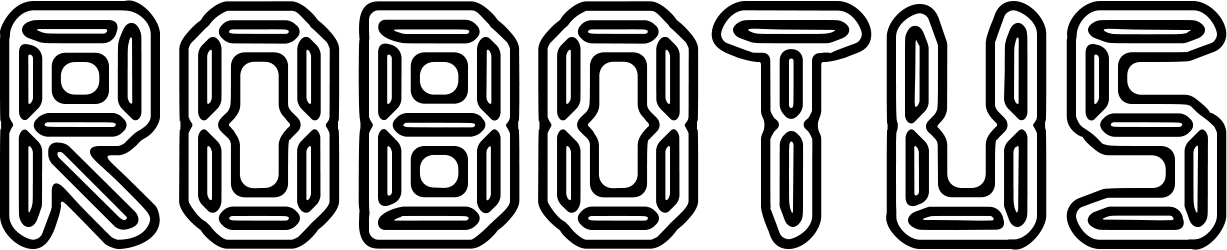
JMH Robotus Font
Want a cool and digital look for your headlines? This font can help you out! This one is a called JMH Robotus. All the characters in this font are capitalized and have a digital design.
They have a dynamic and powerful sense to them and you can use it to write game titles, digital device introductions, futuristic movie titles, computer books, and sports titles.